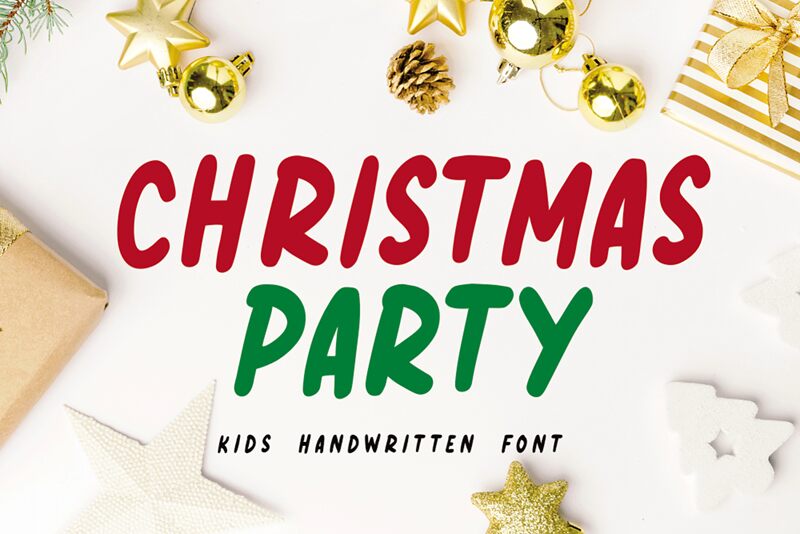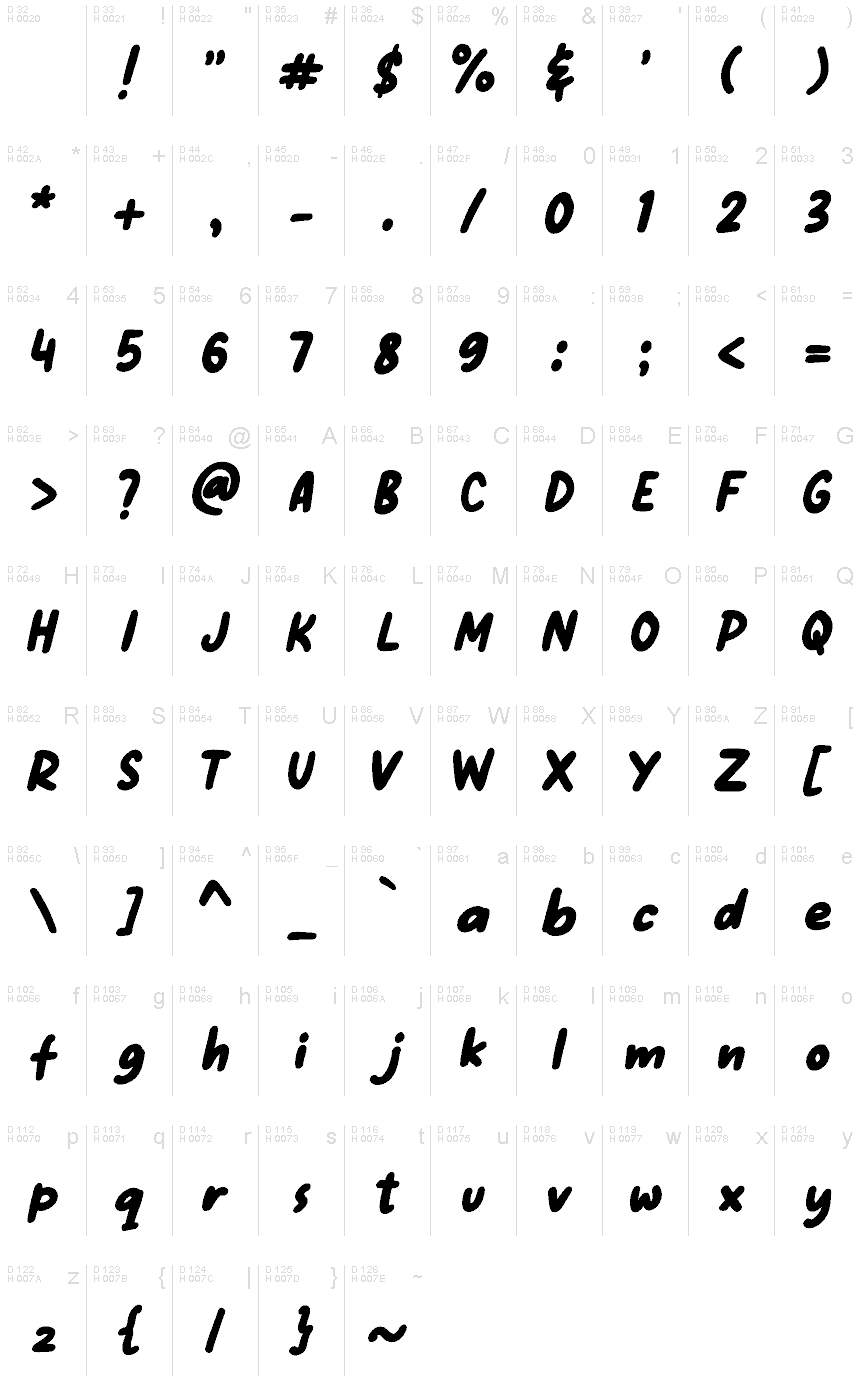
CHRISTMAS PARTY
Christmas Party font by girinesia.std is a free handwritten font that brings the cozy and cheerful spirit of the holiday. It has a casual yet charming presence, with energetic strokes to express your creative side. Friendly and modern, this expressive font can be utilized for many applications.
Use Christmas Party for greeting cards, stickers, labels, children’s posts, logos, social media posts and covers. Other projects may include magazine covers and inside pages, stationery items, typography on images or posters promoting Christmas seasonal deals.